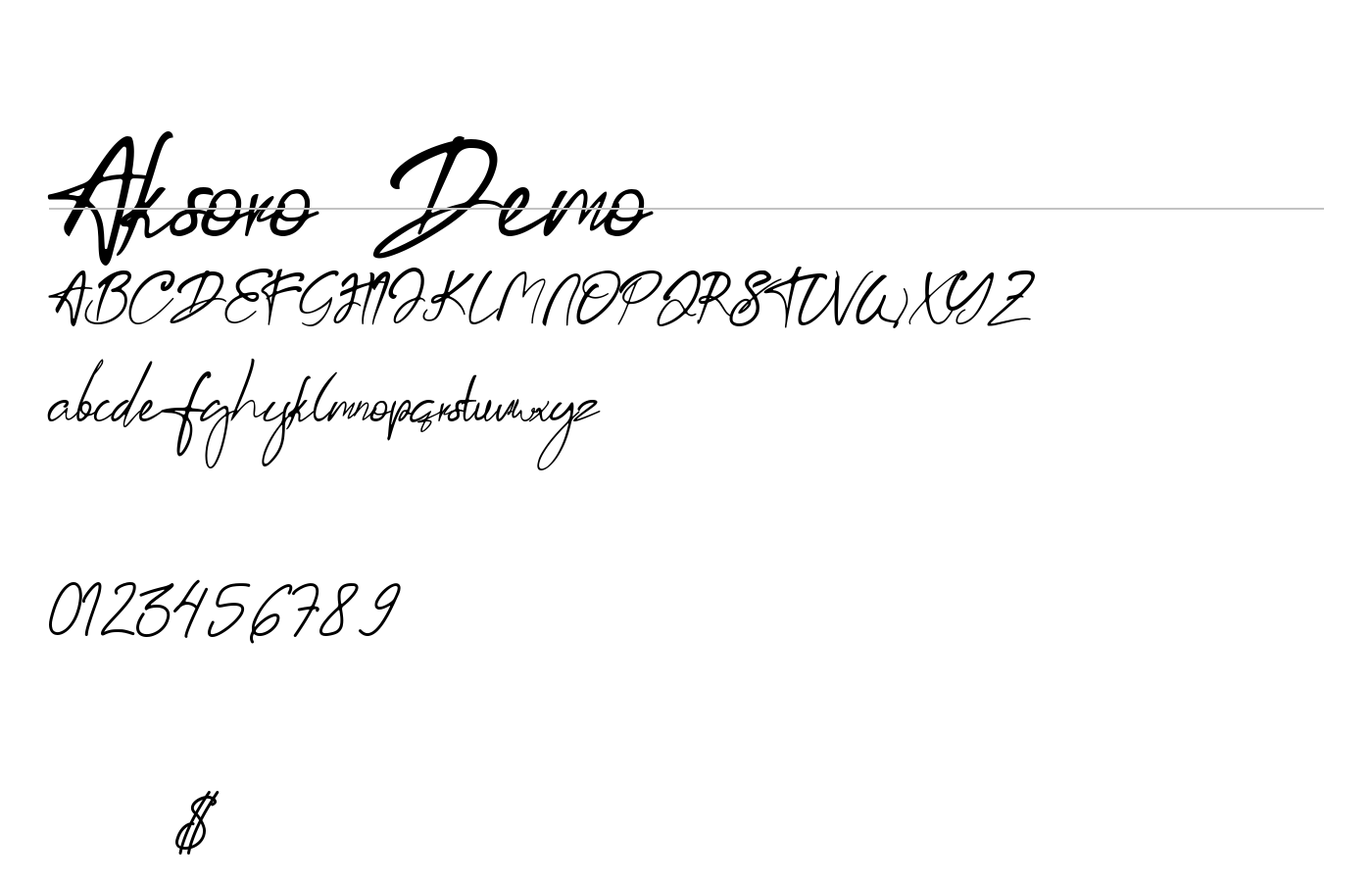
Aksoro Demo is a delicate script font with a handwritten, elegant feel, characterized by thin, flowing strokes and a natural, slightly casual style. Its slender letterforms and smooth connections make it ideal for personal branding, invitations, or stylish editorial projects where a refined yet approachable look is desired. This font works well in headlines or short texts where its graceful charm can truly stand out.
Aksoro Demo Font
About Aksoro Demo Font
| Font family | Aksoro Demo Font |
| Designer | Purnomo, Taufik Dwi @ Nariswari |